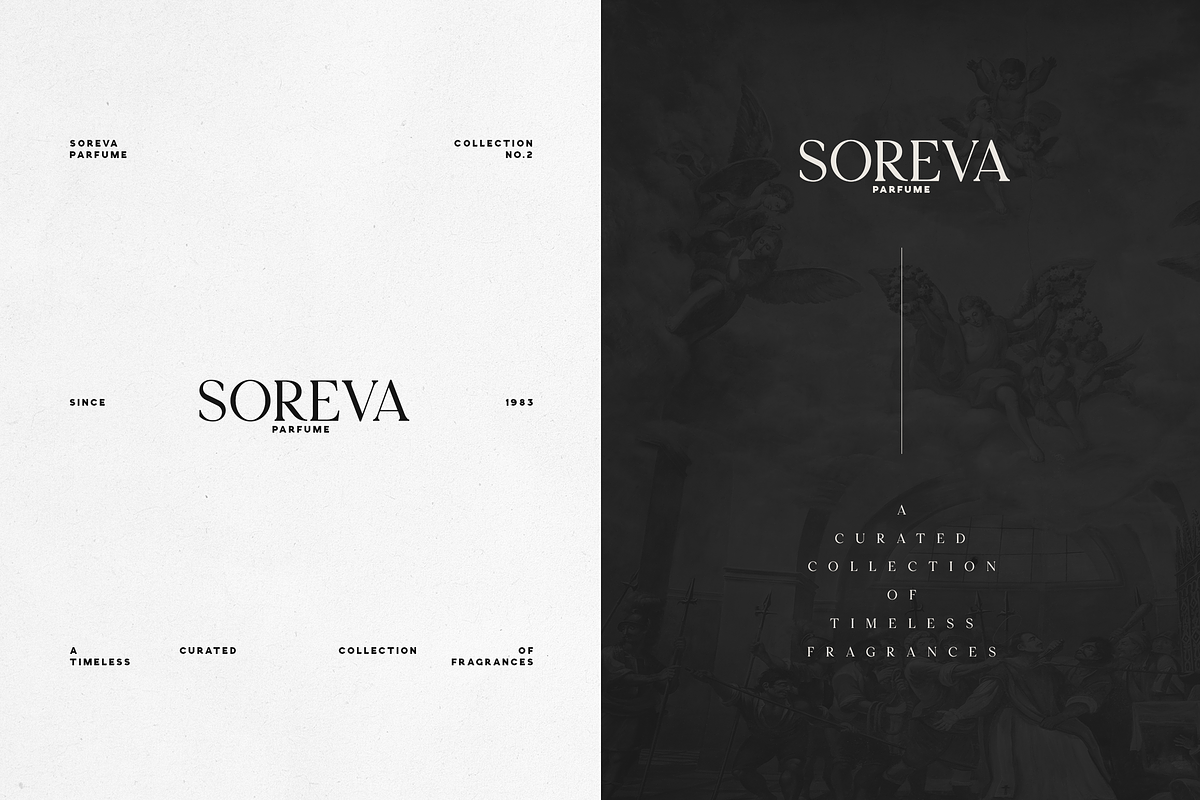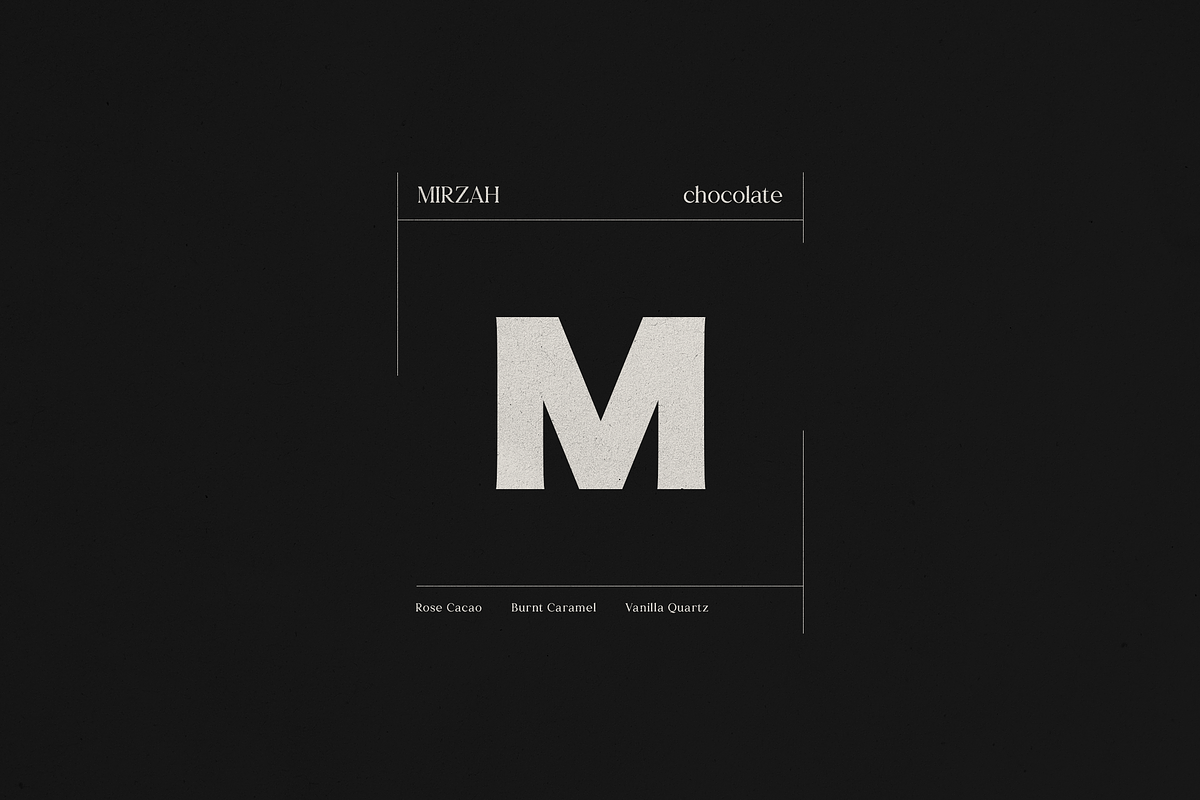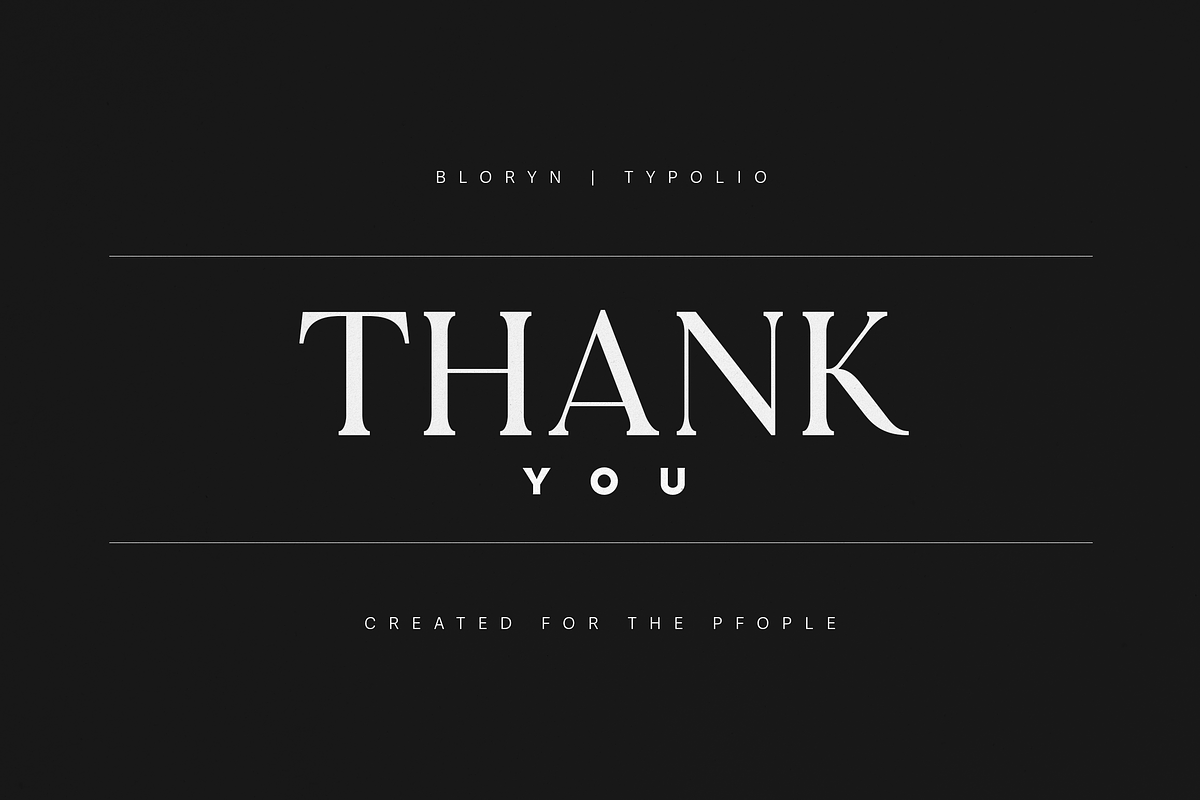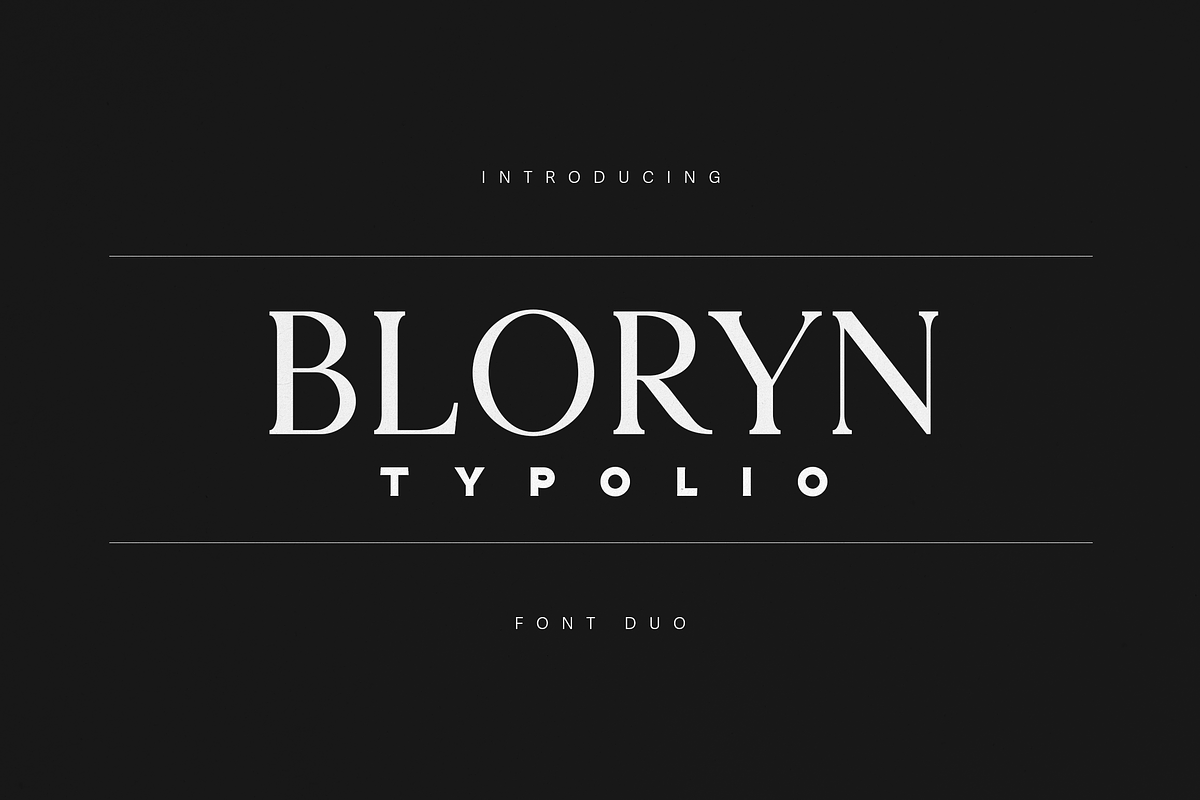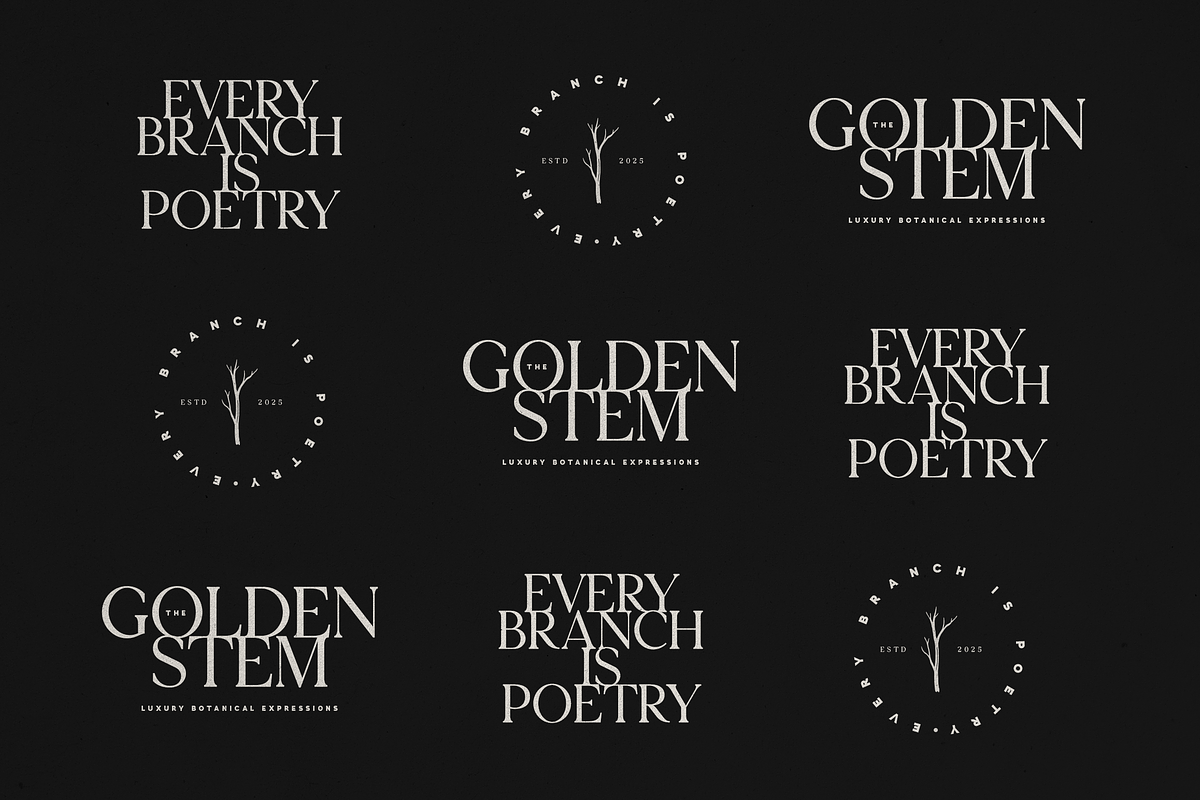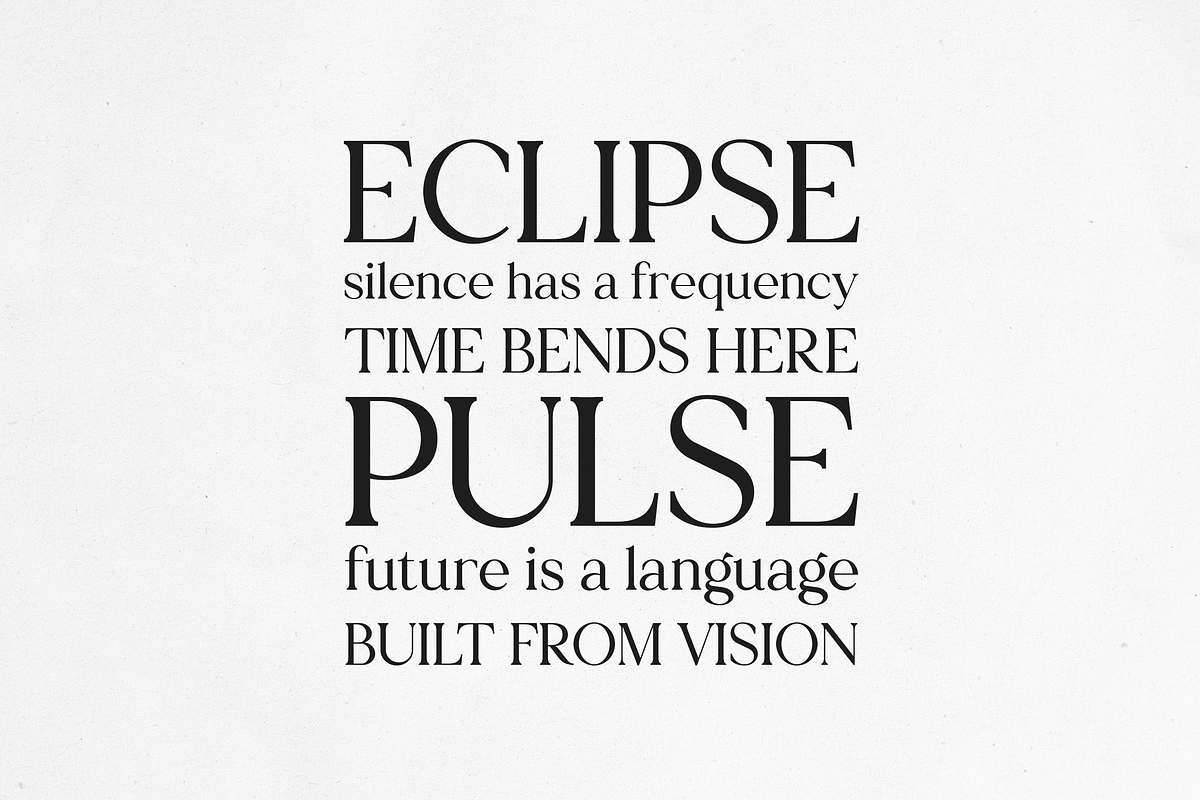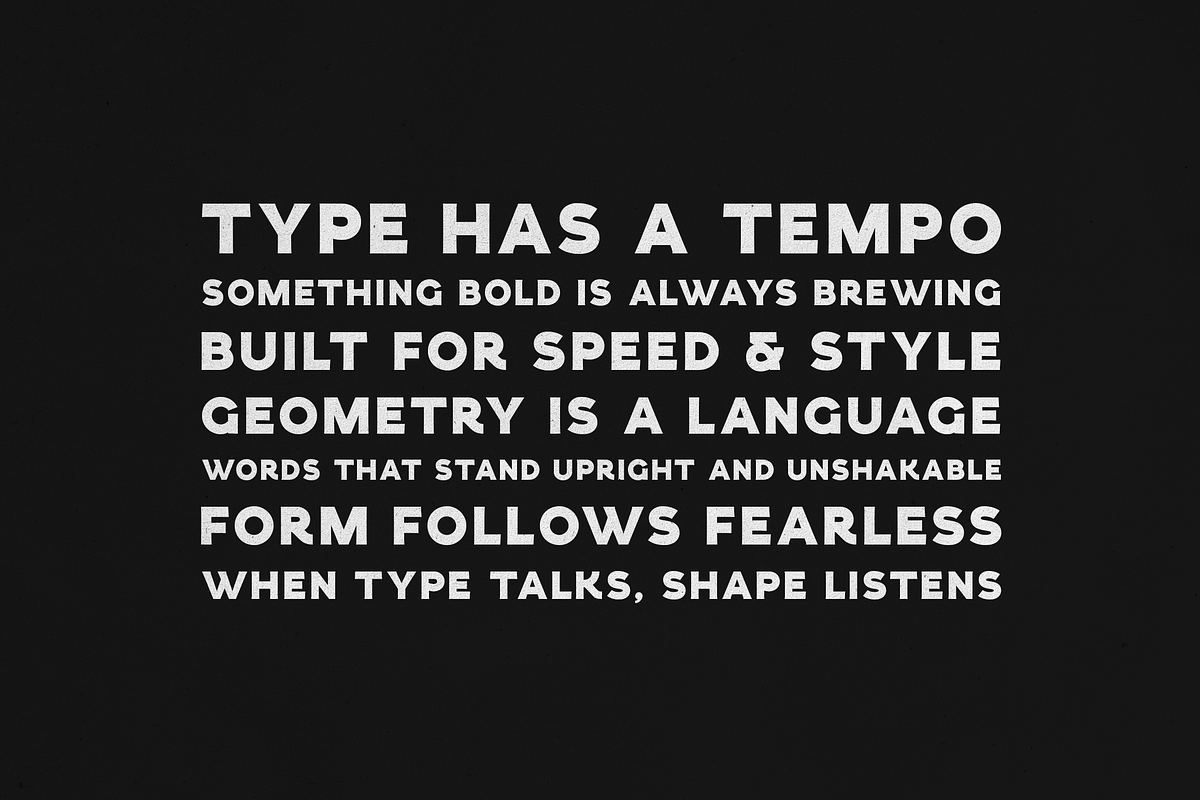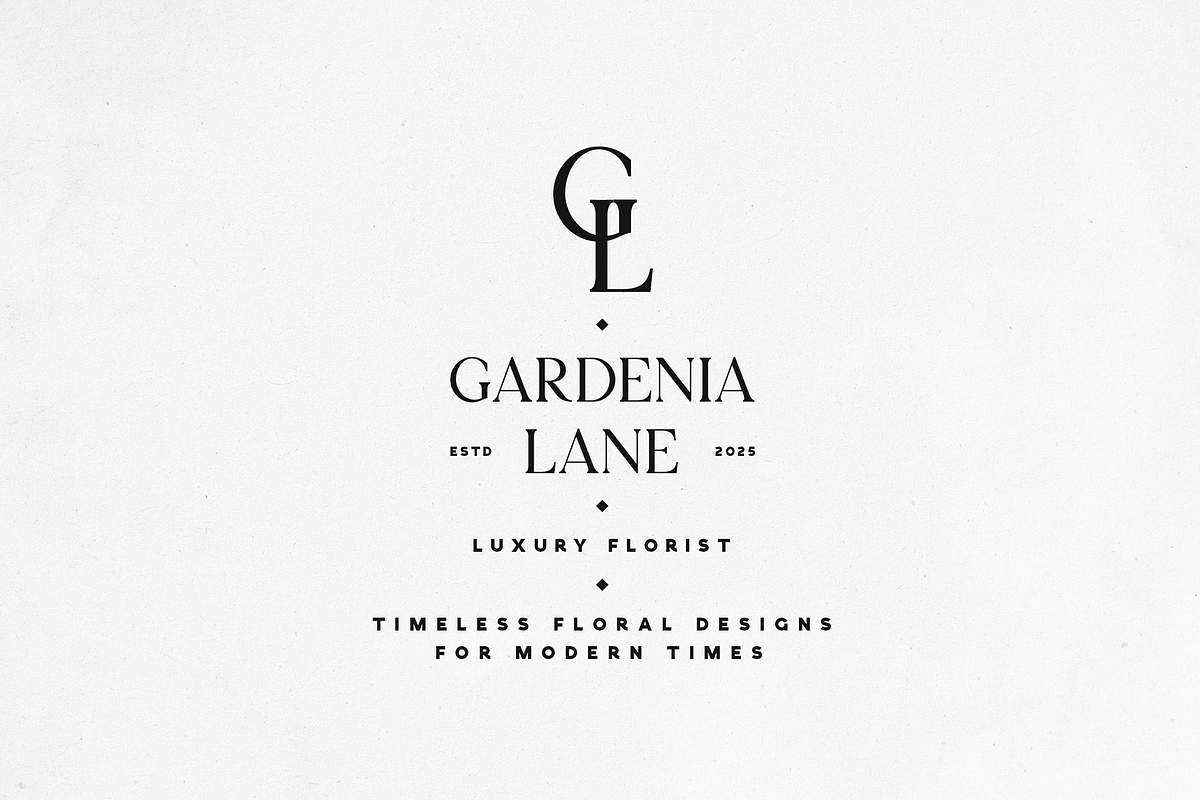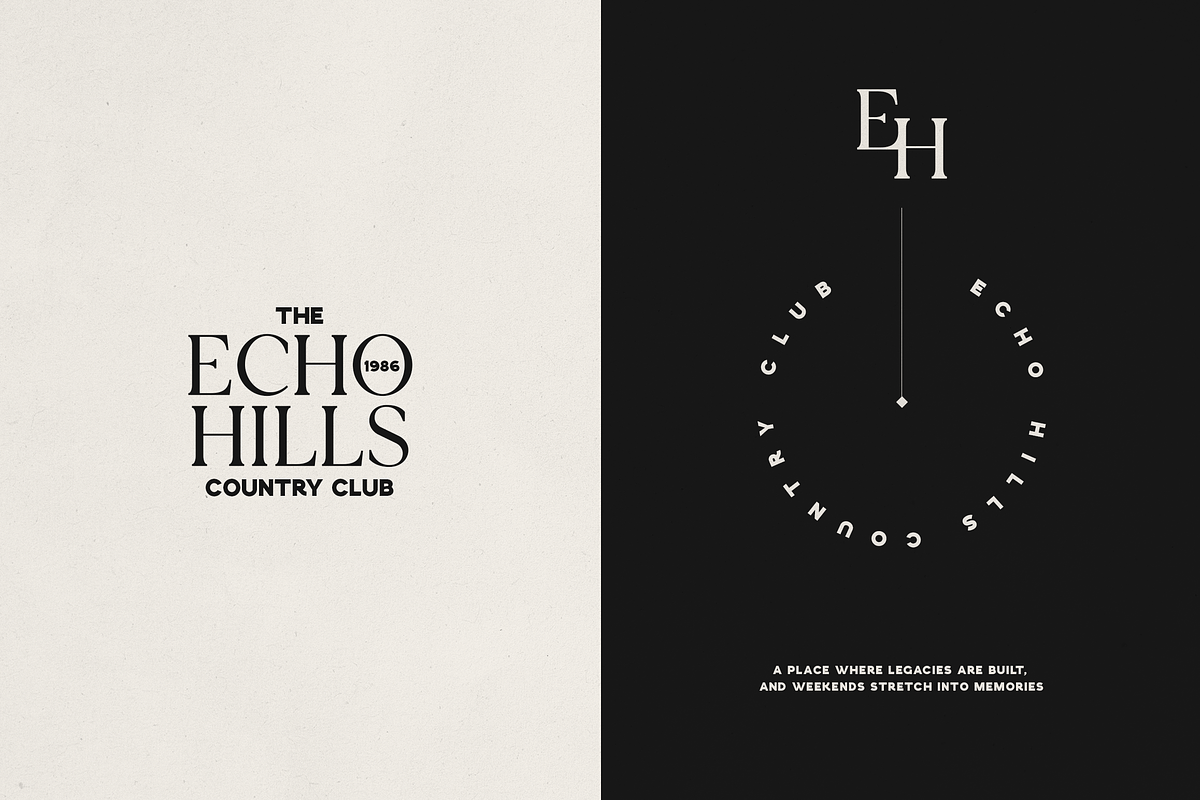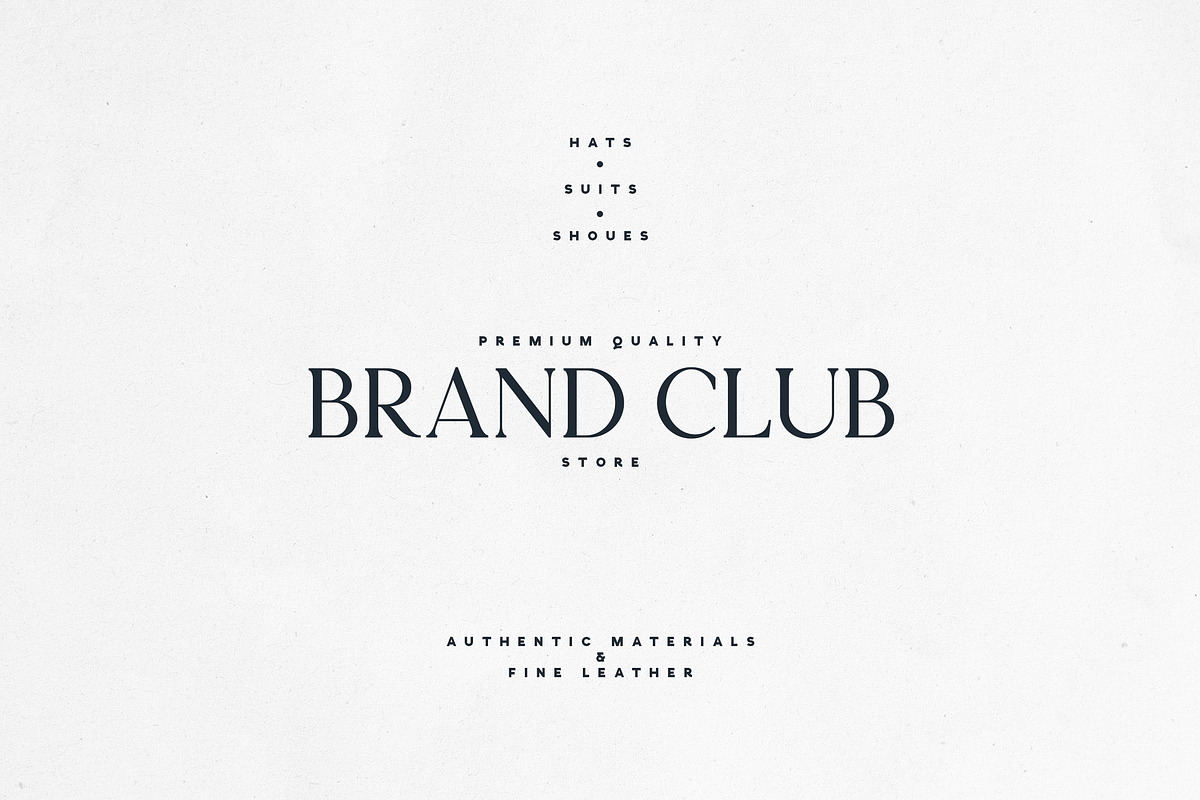
Bloryn & Typolio - Elegant Font Duo
Bloryn Typolio — Elegant & Modern Font Duo for Premium Branding
Bloryn Typolio is a sophisticated font duo that blends timeless elegance with bold modernism — designed for brands that want to make a statement of confidence, luxury, and style. Featuring a striking contrast between a refined serif display and a geometric sans companion, this duo delivers effortless harmony across logos, packaging, magazines, and high-end visual identities.
Each letterform in Bloryn Typolio reflects meticulous craftsmanship — sharp serifs meet smooth geometry, creating a balance between classic charm and contemporary minimalism. It’s the perfect pairing for luxury fashion labels, editorial layouts, wellness brands, architecture studios, and modern boutique identities.
- High-end branding & logo design
- Editorial & magazine layouts
- Product packaging & labels
- Invitations & stationery
- Website headers & social media graphics
- Bloryn Serif
- Typolio Sans
Design Aesthetic:
Minimal. Bold. Timeless. The combination of contrast and balance makes Bloryn Typolio a go-to typeface duo for luxury-focused creatives who want to elevate their design presence with effortless refinement.